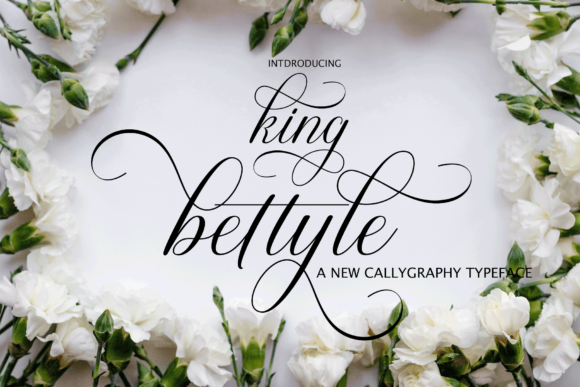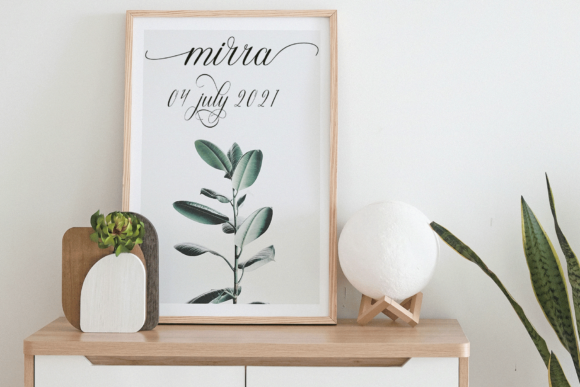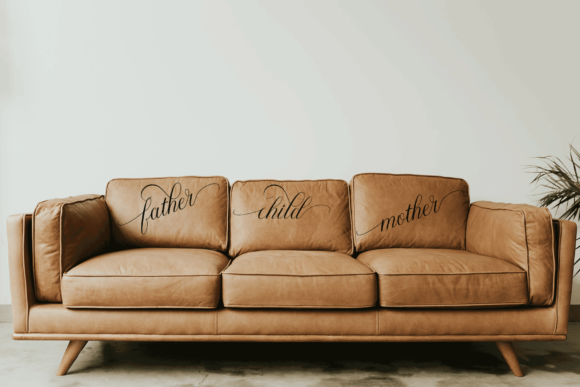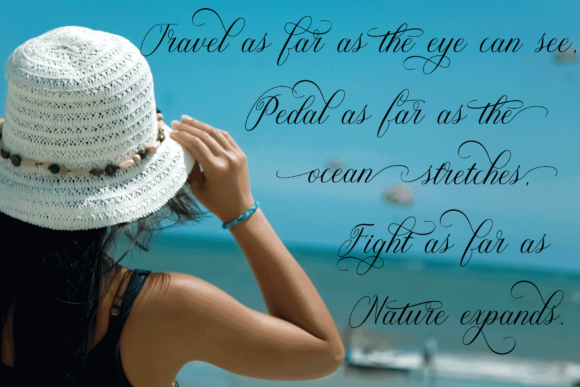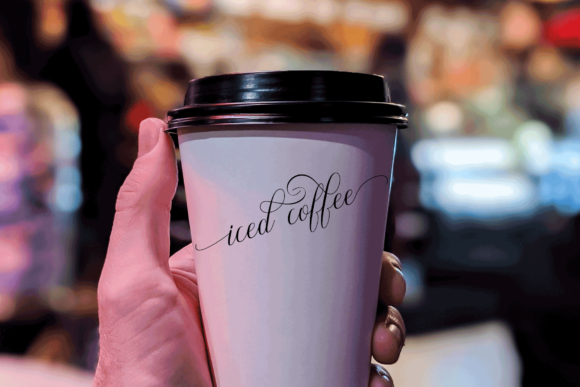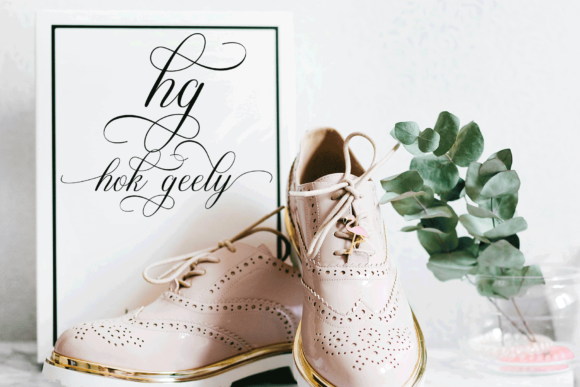
Introduction to King Bettyle Font
King Bettyle is a beautiful and modern handwritten font.
Its distinct and well rounded letters make this font a masterpiece Fall in love with its incredibly versatile style and use it to create spectacular designs.